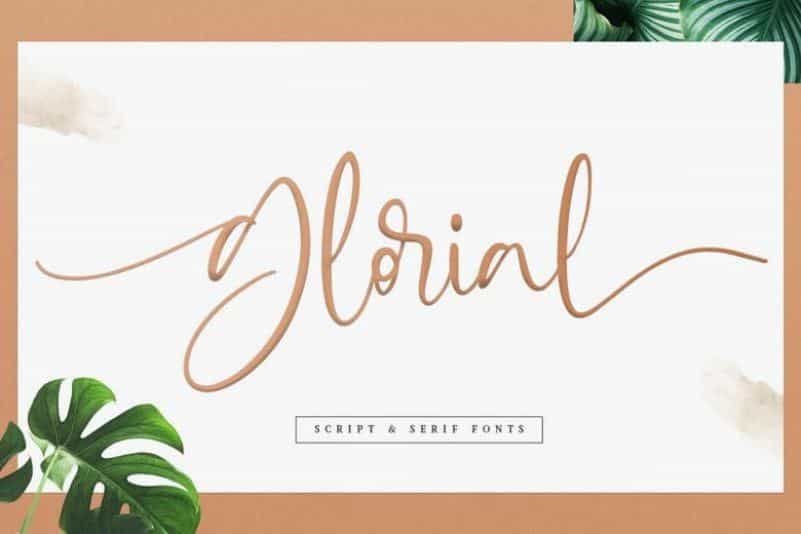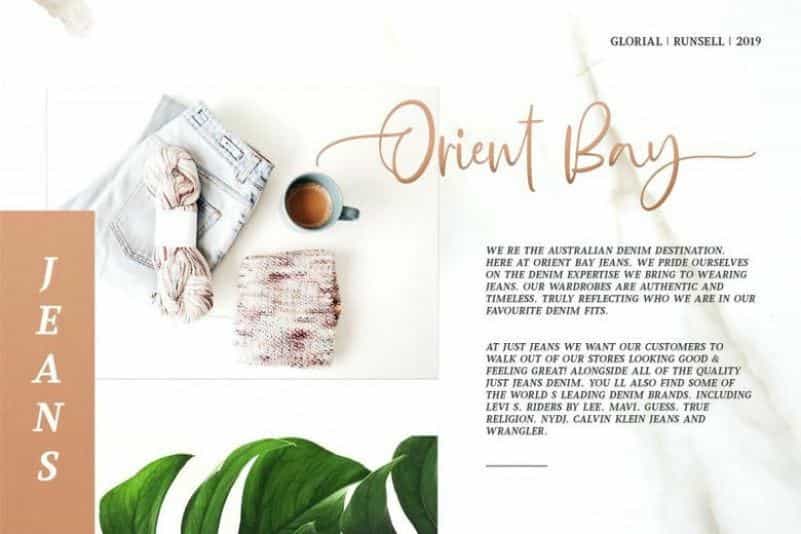
Glorial Script comes with a full set of uppercase & lowercase letters beginning swashes, a full set of lowercase letters ending swashes, a full set Of lowercase letters contextual alternates, 50+ ligatures features that make the font look more natural.